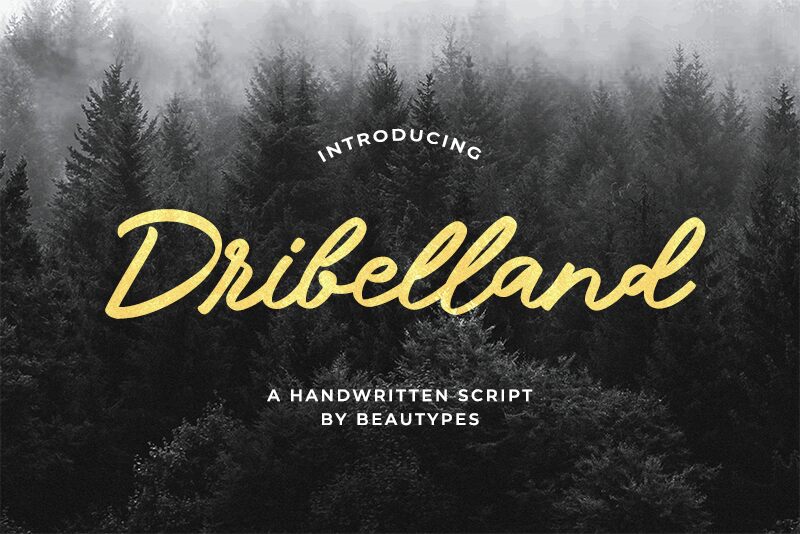
Dribelland
Dribelland font, crafted by Beautypes, exudes an enchanting blend of whimsy and elegance through its handwritten style. The fluidity of its strokes evokes a personal touch, while its playful characteristics create a visually striking presence that captures attention effortlessly. With exaggerated curves and dynamic flourishes, Dribelland stands out in any design context.
Ideal for invitations, branding, or artwork that seeks to convey warmth and creativity, this font brings a unique personality that enhances the overall aesthetic. Its expressive nature allows it to shine in both casual and sophisticated settings, making it a versatile choice for designers aiming to infuse character into their projects.